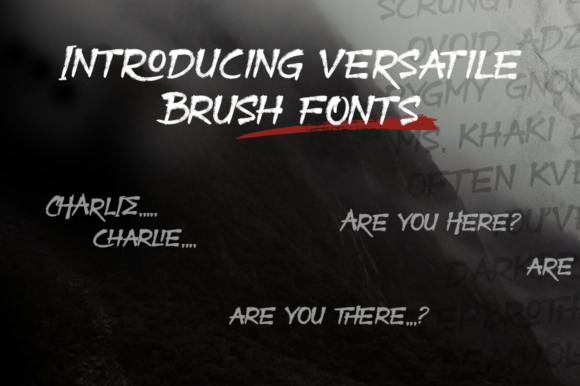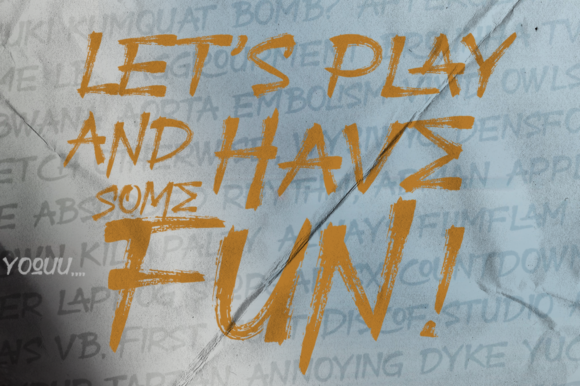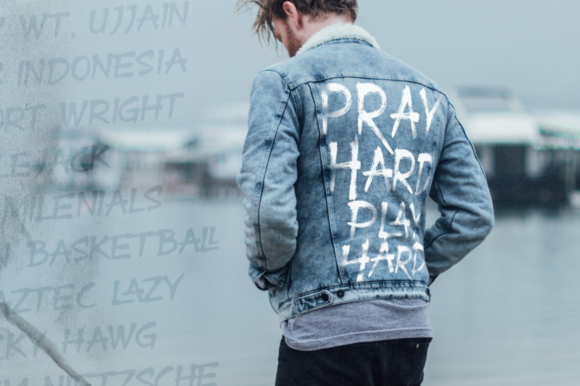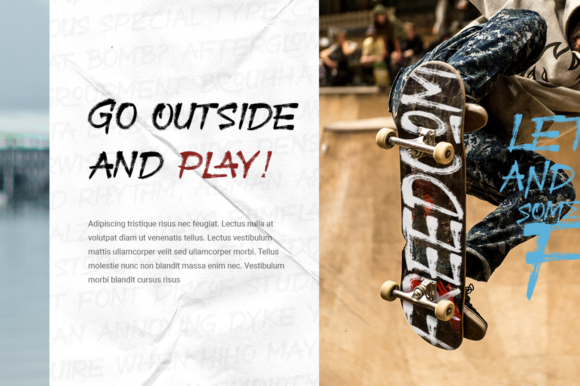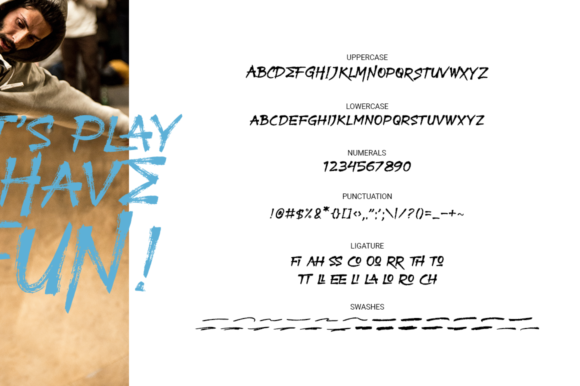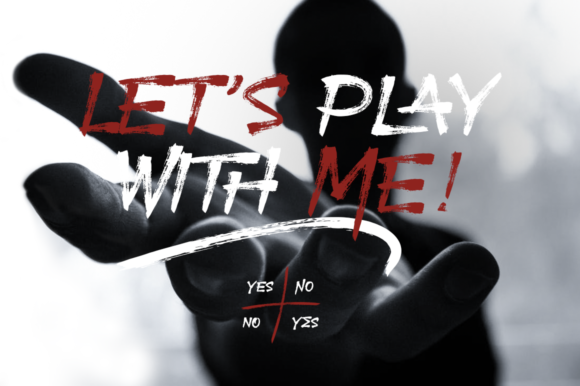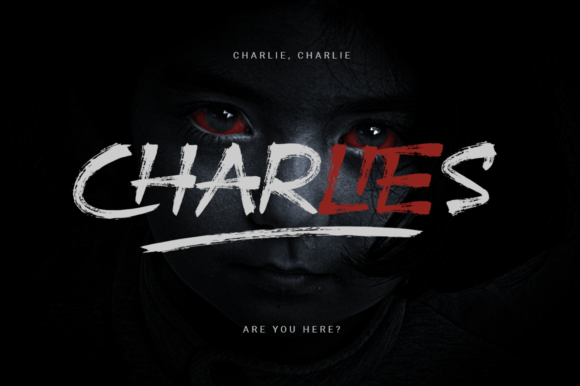
Introducing Charlie’s Font: The Ultimate Dry Brush All-Caps Display Font
Are you tired of using the same old fonts in your design projects? Look no further than Charlie’s Font, a versatile and stylish dry brush all-caps display font that’s perfect for a multitude of projects. In this article, we’ll dive into the features and benefits of Charlie’s Font, and explore how it can elevate your designs to the next level.
What is Charlie’s Font?
Charlies Font is a unique and eye-catching dry brush all-caps display font that’s designed to make a statement. With its rough, textured look and bold lettering, Charlie’s Font is perfect for adding a touch of personality and style to any design project. Whether you’re working on a logo, poster, or social media graphic, Charlie’s Font is sure to turn heads.
Key Features of Charlie’s Font
So, what sets Charlie’s Font apart from other fonts out there? Here are just a few of its key features:
• Dry Brush Effect: Charlie’s Font features a unique dry brush effect that gives it a rough, textured look. This effect adds a touch of authenticity and personality to any design.
• All-Caps Display Font: Charlie’s Font is an all-caps display font, making it perfect for headlines, titles, and other attention-grabbing elements.
• Multitude of Uses: Charlie’s Font is incredibly versatile and can be used in a wide range of projects, from logos and posters to social media graphics and more.
Benefits of Using Charlie’s Font
So, why should you choose Charlie’s Font for your next design project? Here are just a few benefits of using this amazing font:
• Adds Personality to Your Designs: Charlie’s Font is a unique and eye-catching font that’s sure to add a touch of personality to any design.
• Perfect for Headlines and Titles: The bold, all-caps lettering of Charlie’s Font makes it perfect for headlines and titles that need to grab attention.
• Easy to Read: Despite its bold and textured look, Charlie’s Font is surprisingly easy to read, making it perfect for use in a wide range of projects.
How to Use Charlie’s Font in Your Designs
Using Charlie’s Font in your designs is easy! Here are a few tips to get you started:
• Pair it with Other Fonts: Charlie’s Font pairs perfectly with other fonts, so don’t be afraid to experiment with different combinations.
• Use it for Headlines and Titles: The bold, all-caps lettering of Charlie’s Font makes it perfect for headlines and titles that need to grab attention.
• Add Texture and Depth: The dry brush effect of Charlie’s Font adds texture and depth to any design, making it perfect for use in projects that need a little extra visual interest.
Who is Charlie’s Font for?
Charlies Font is perfect for designers, crafters, and anyone looking to add a touch of personality and style to their designs. Whether you’re a professional designer or a DIY crafter, Charlie’s Font is a versatile and stylish font that’s sure to meet your needs.
• Designers: Charlie’s Font is perfect for designers looking to add a unique and eye-catching element to their designs.
• Crafters: Charlie’s Font is also perfect for crafters who want to add a touch of personality and style to their handmade projects.
• Small Business Owners: Charlie’s Font is a great choice for small business owners who want to create eye-catching marketing materials that reflect their brand’s personality.
In conclusion, Charlie’s Font is a versatile and stylish dry brush all-caps display font that’s perfect for a multitude of projects. With its unique dry brush effect, bold lettering, and ease of use, Charlie’s Font is sure to become a go-to font in your design arsenal. So why wait? Download Charlie’s Font today and start adding a touch of personality and style to your designs!